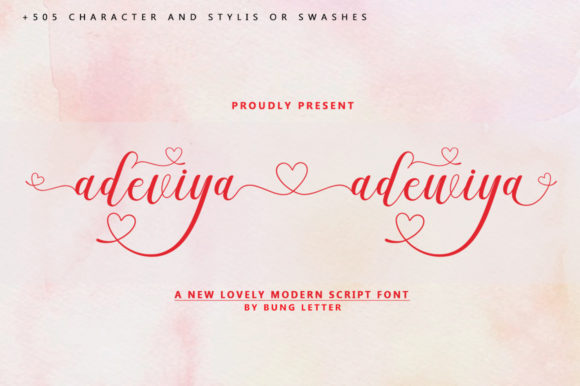
Adeviya Adewiya Font: Add a Touch of Romance to Your Designs
Are you looking for a font that can add a romantic feel to your designs? Look no further than the Adeviya Adewiya font. This enchanting handwritten font is perfect for a wide range of applications, from greeting cards to headlines, and is sure to make your projects stand out. In this article, we’ll take a closer look at the Adeviya Adewiya font and explore its features, benefits, and uses.
What is Adeviya Adewiya Font?
Adeviya Adewiya is a beautiful script font that is designed to add a touch of elegance and romance to your designs. With its flowing lines and delicate curves, this font is perfect for creating beautiful and eye-catching text. Whether you’re designing a greeting card, a wedding invitation, or a headline, Adeviya Adewiya is the perfect choice.
Key Features of Adeviya Adewiya Font
So, what makes Adeviya Adewiya font so special? Here are some of its key features:
- Handwritten script font: Adeviya Adewiya is a handwritten script font that has a personal and intimate feel.
- PUA encoded: This font is PUA (Private Use Area) encoded, which means you can access all of the beautiful glyphs and swashes with ease.
- Versatile: Adeviya Adewiya is a versatile font that can be used for a wide range of applications, from greeting cards to headlines.
- Romantic feel: This font has a romantic feel that is perfect for creating beautiful and eye-catching text.
Benefits of Using Adeviya Adewiya Font
So, why should you use Adeviya Adewiya font in your designs? Here are some of its benefits:
- Adds a personal touch: Adeviya Adewiya font adds a personal touch to your designs, making them more intimate and engaging.
- Perfect for romantic designs: This font is perfect for creating romantic designs, such as wedding invitations, Valentine’s Day cards, and more.
- High-quality: This font is high-quality and will make your designs look professional and polished.
Uses of Adeviya Adewiya Font
Adeviya Adewiya font is a versatile font that can be used for a wide range of applications. Here are some of its uses:
- Greeting cards: This font is perfect for creating beautiful and eye-catching greeting cards, such as birthday cards, Christmas cards, and more.
- Wedding invitations: Adeviya Adewiya font is perfect for creating romantic wedding invitations that will make your guests feel special.
- Headlines: This font can be used to create eye-catching headlines for magazines, newspapers, and more.
- Social media graphics: Adeviya Adewiya font can be used to create beautiful and eye-catching social media graphics, such as Facebook posts, Instagram posts, and more.
Tips for Using Adeviya Adewiya Font
Here are some tips for using Adeviya Adewiya font in your designs:
- Use it sparingly: Adeviya Adewiya font is a beautiful font, but it can be overwhelming if used too much. Use it sparingly to create a beautiful and eye-catching design.
- Pair it with other fonts: This font can be paired with other fonts to create a unique and eye-catching design.
- Experiment with different sizes: Adeviya Adewiya font can be used in different sizes to create a beautiful and eye-catching design.
| Font Name | Adeviya Adewiya Font |
| Author | bungreja123 |
In conclusion, Adeviya Adewiya font is a beautiful and versatile script font that can add a romantic feel to your designs. With its flowing lines and delicate curves, this font is perfect for creating beautiful and eye-catching text. Whether you’re designing a greeting card, a wedding invitation, or a headline, Adeviya Adewiya font is the perfect choice. So, why not give it a try and see how it can enhance your designs?